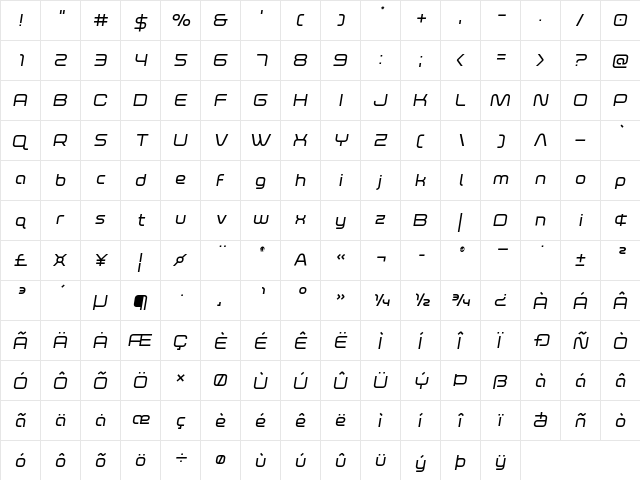
Fox on the Run Semi-Italic Semi-Italic
Design Context for Fox on the Run Semi-Italic Typeface
Fox on the Run Semi-Italic is a composed and adaptable typeface that performs quietly and consistently across a wide range of design contexts. The slanted form adds forward momentum and visual energy.